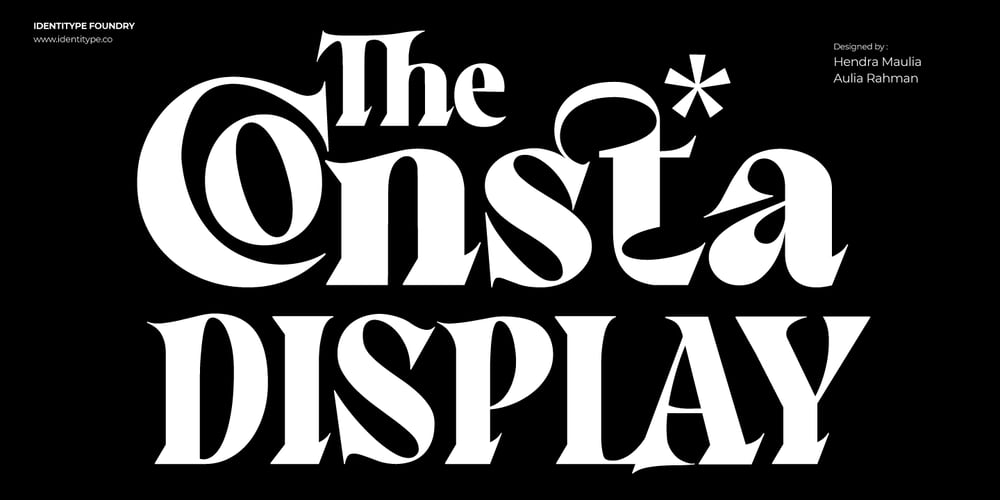
Consta
Consta font
Consta Font Family was designed by Aulia Rahman, Hendra Maulia and published by Identitype Co. Consta contains 8 styles and family package options. Consta Serif is a seven-weight typeface that wishes to express a tribute to the gracious and delicate forms of the human body. Consta is a standout display font that is a mode to Contrast Serif typography in the present day. Its elaborate curves and unique shapes make it perfect for headings, logos & wedding invitations. Consta is all class so if you want a stylish font that is guaranteed to draw the eye, then this is it!All seven weights (Extralight, Light, Regular, Medium, Semibold, Bold, Extra Bold) contain character sets that include uppercase, lowercase, numerals, diacritics, punctuation, ligatures, alternates, and symbols. Furthermore, this Human Grade Type supports more than 89 languages derived from Latin, namely Western, Central, and South-Eastern European languages, making it a perfect fit to be used either in titles or other typographic compositions.